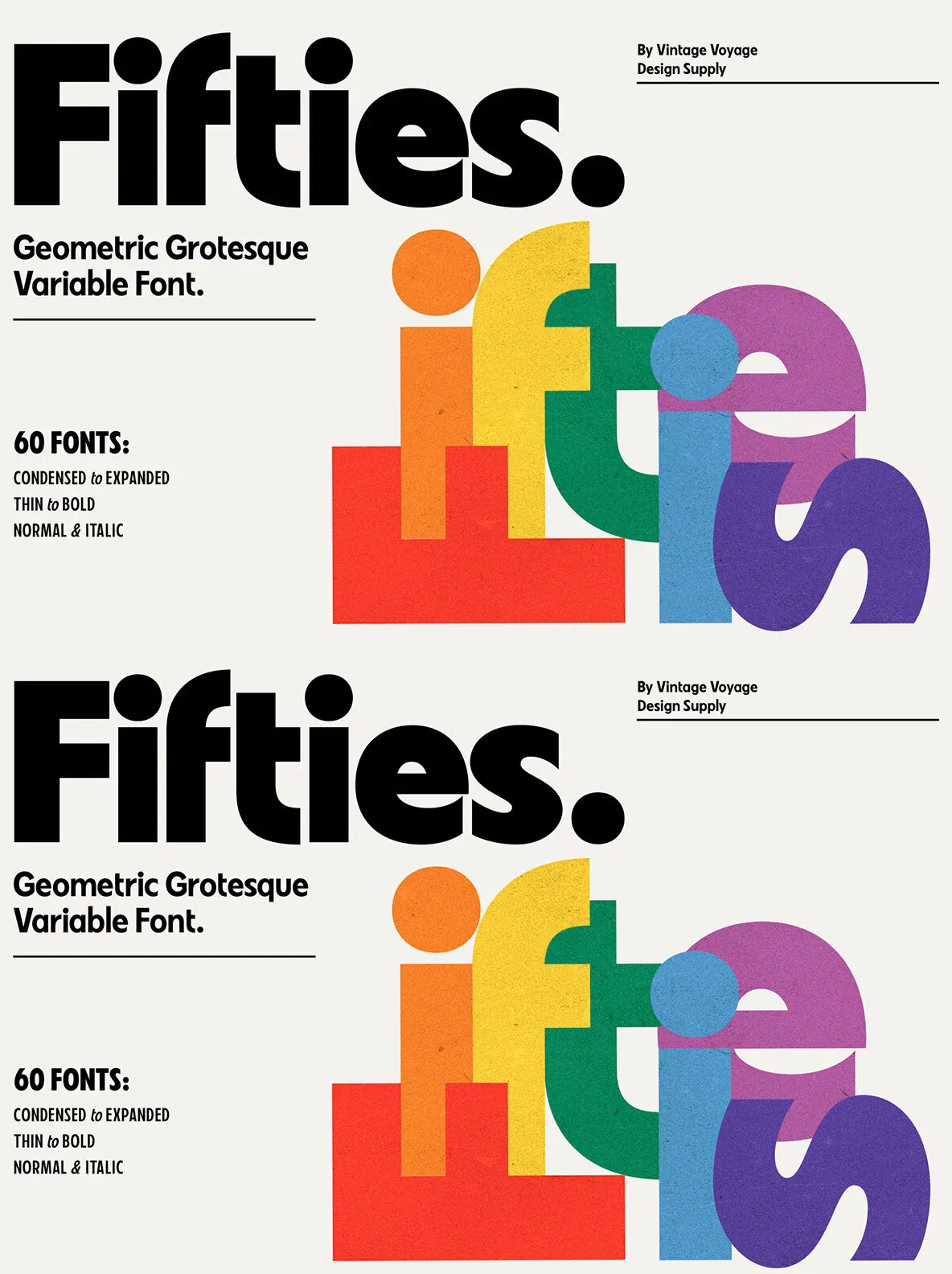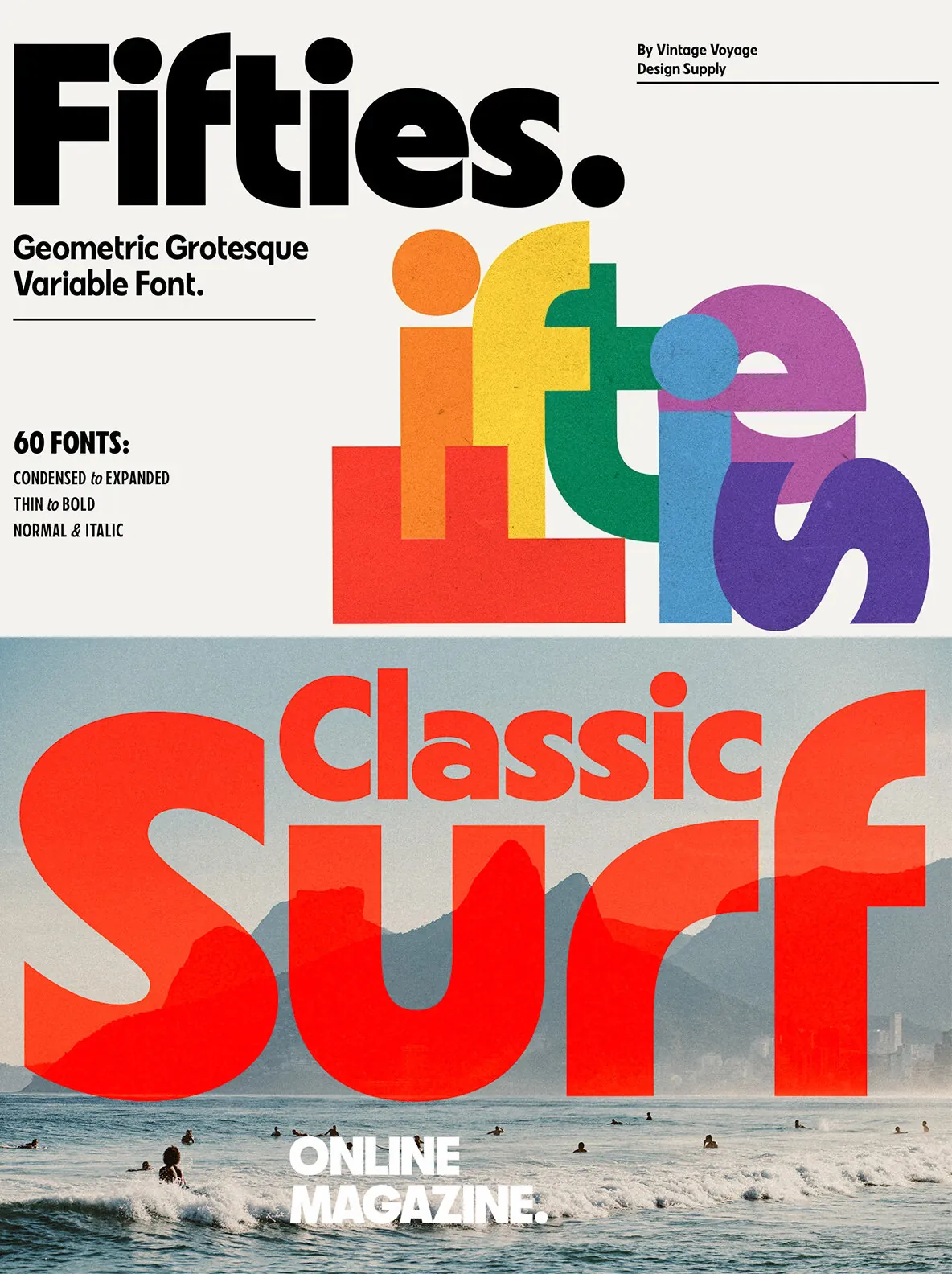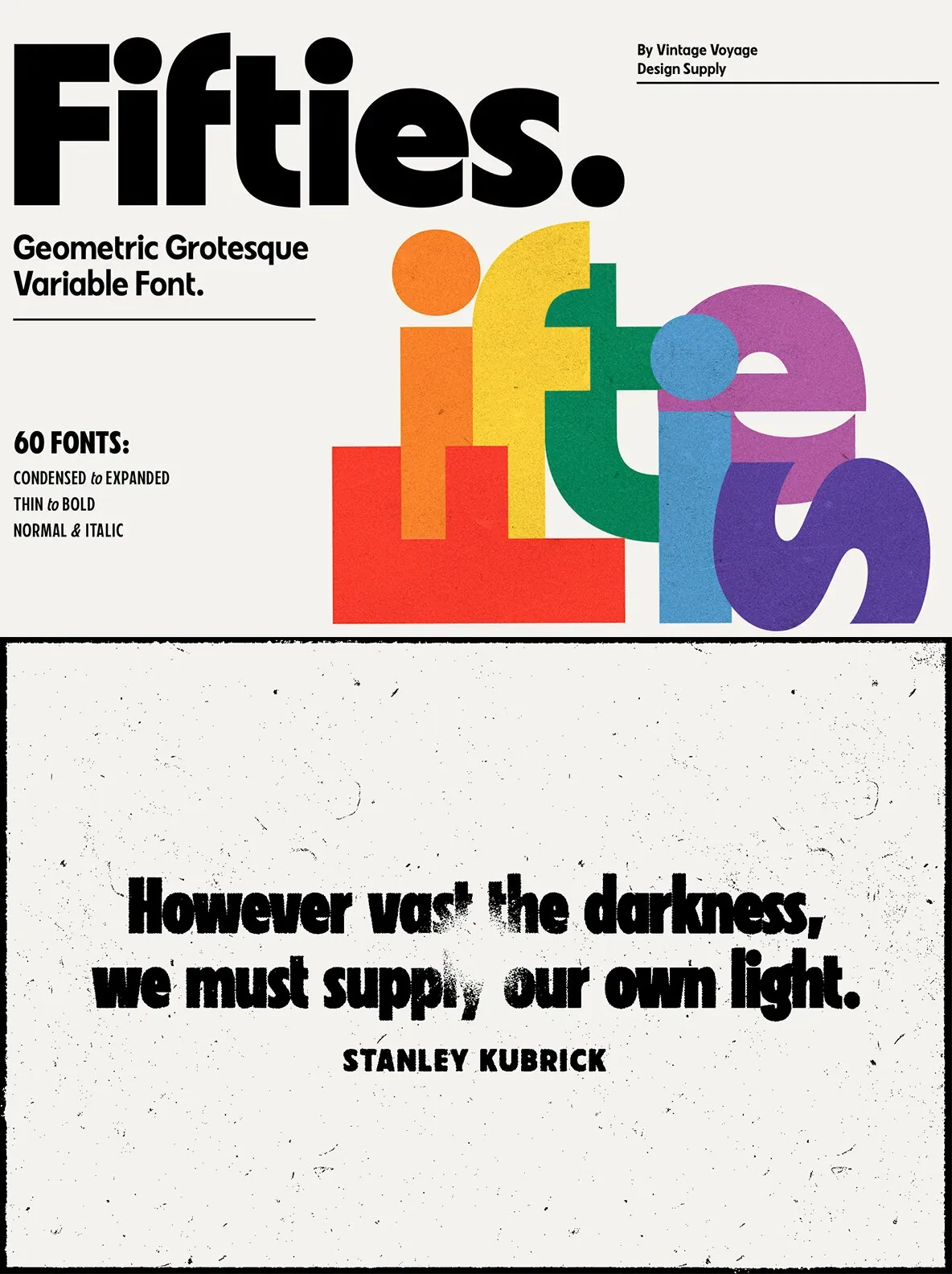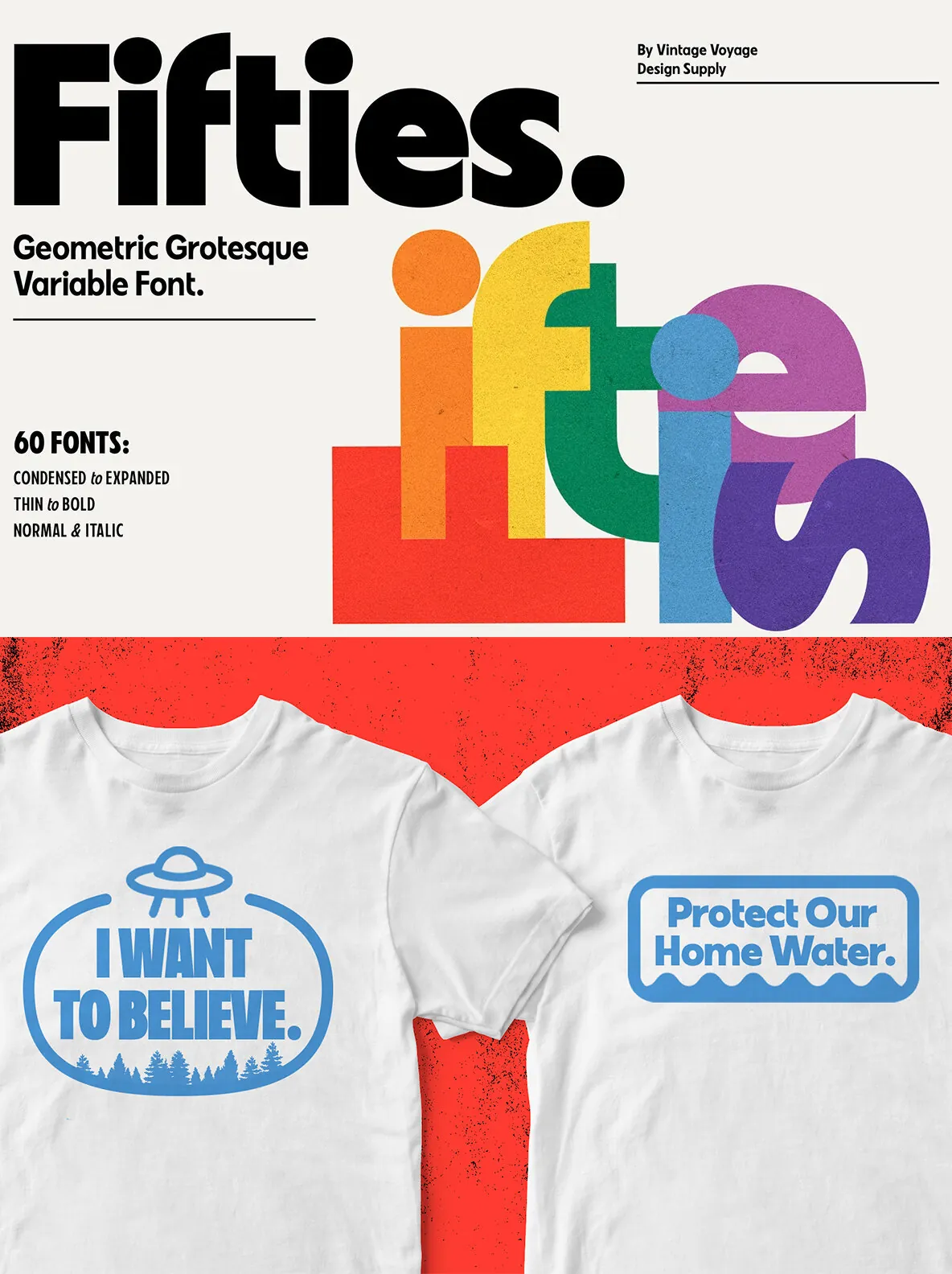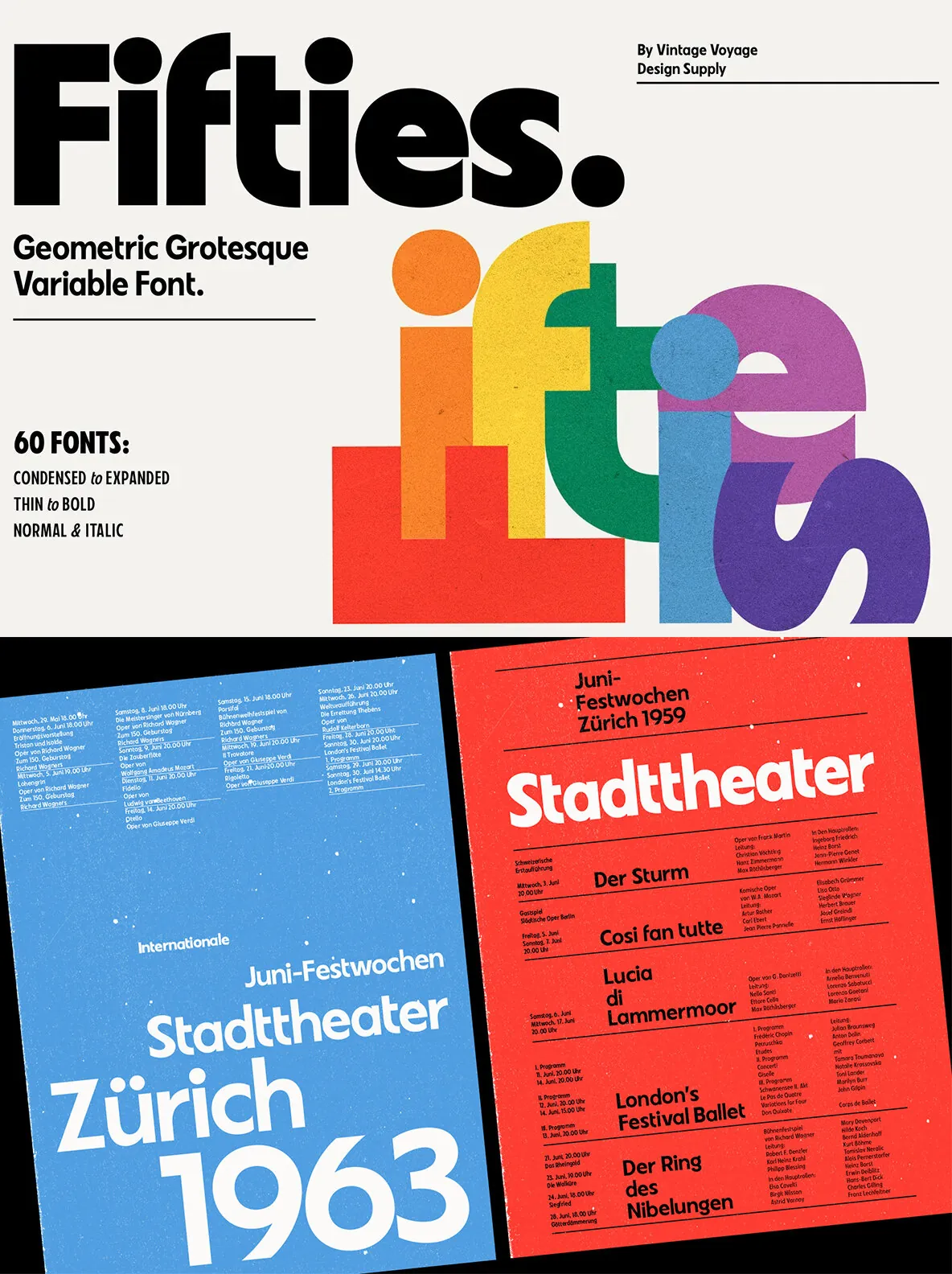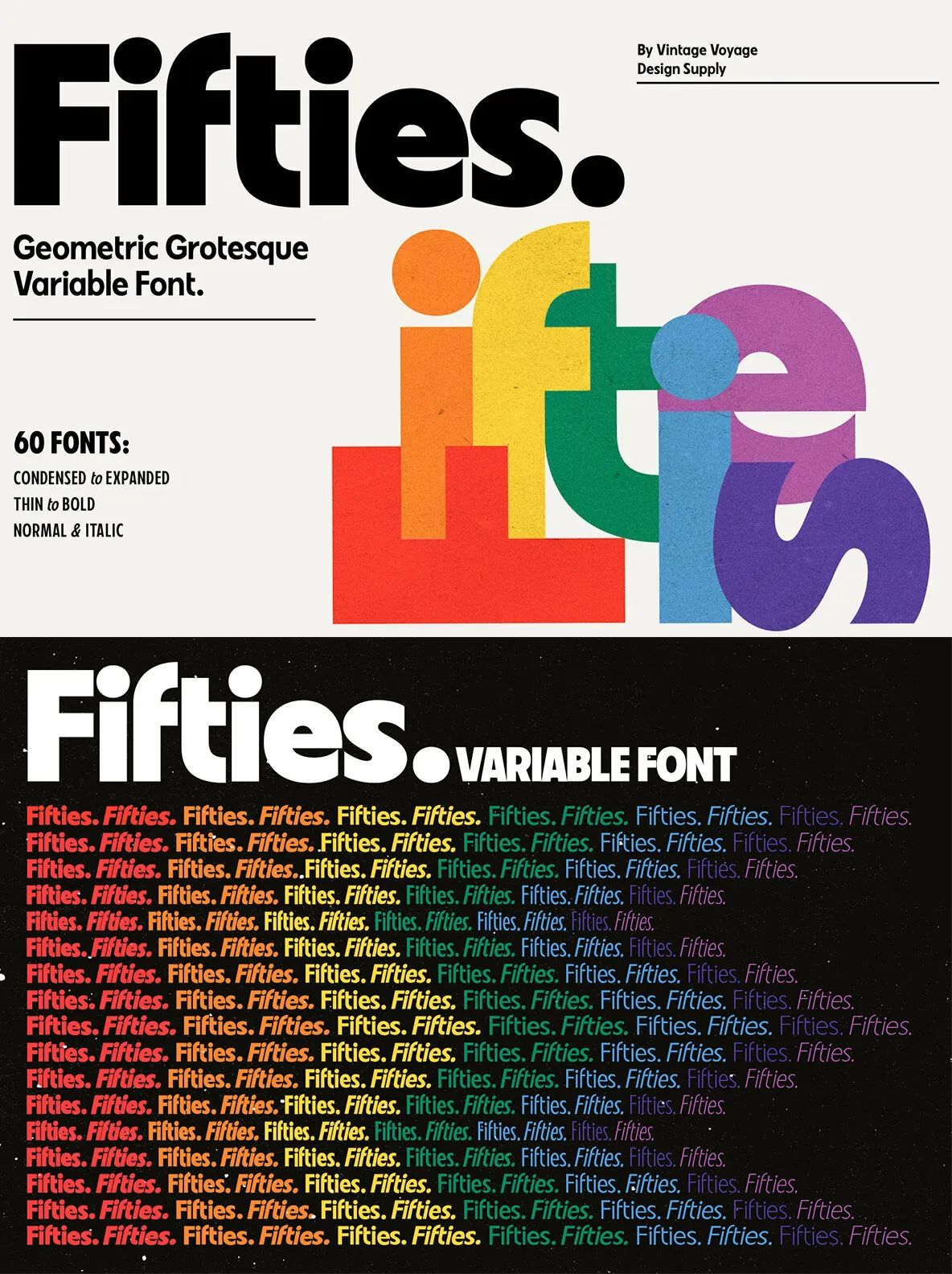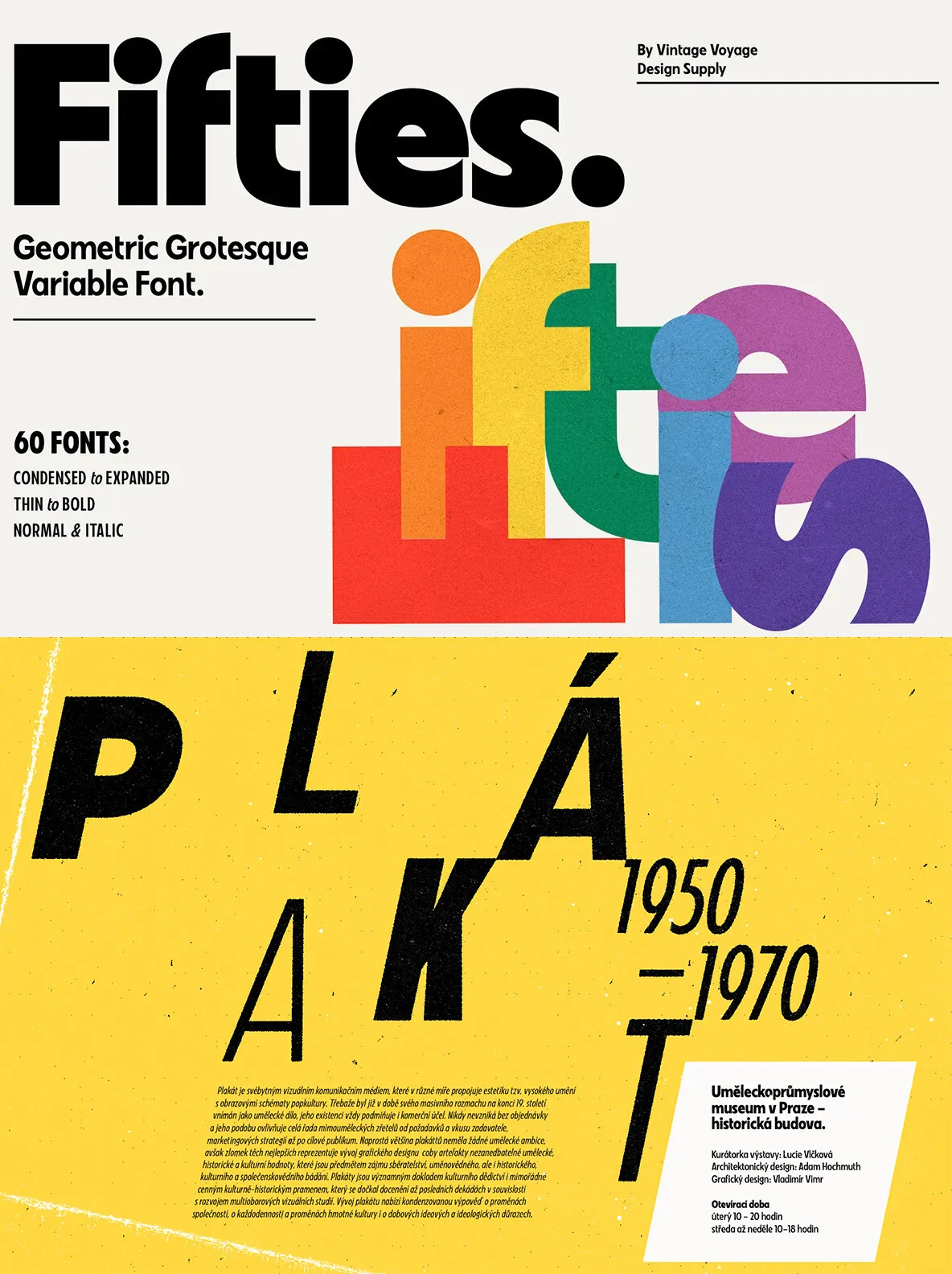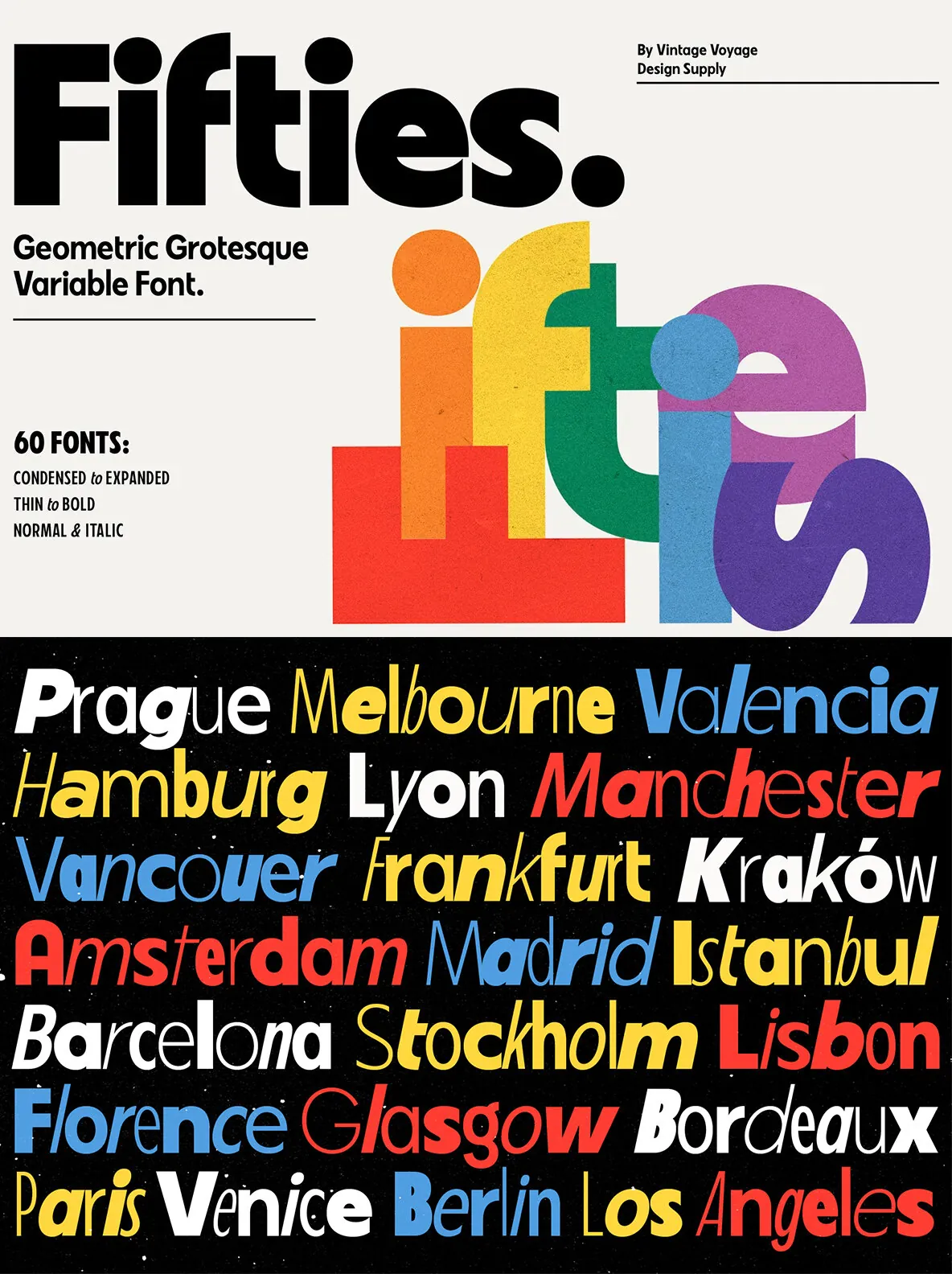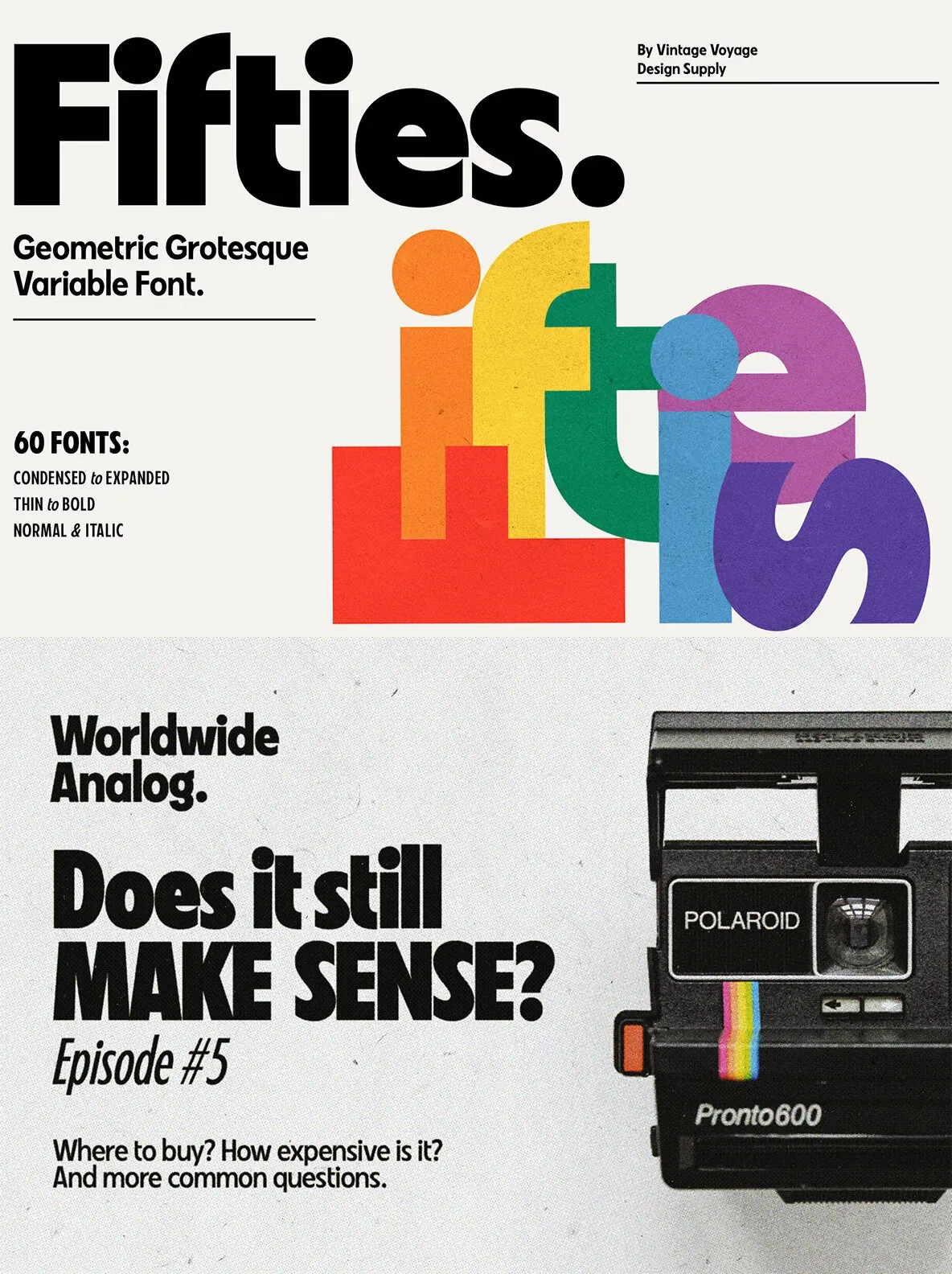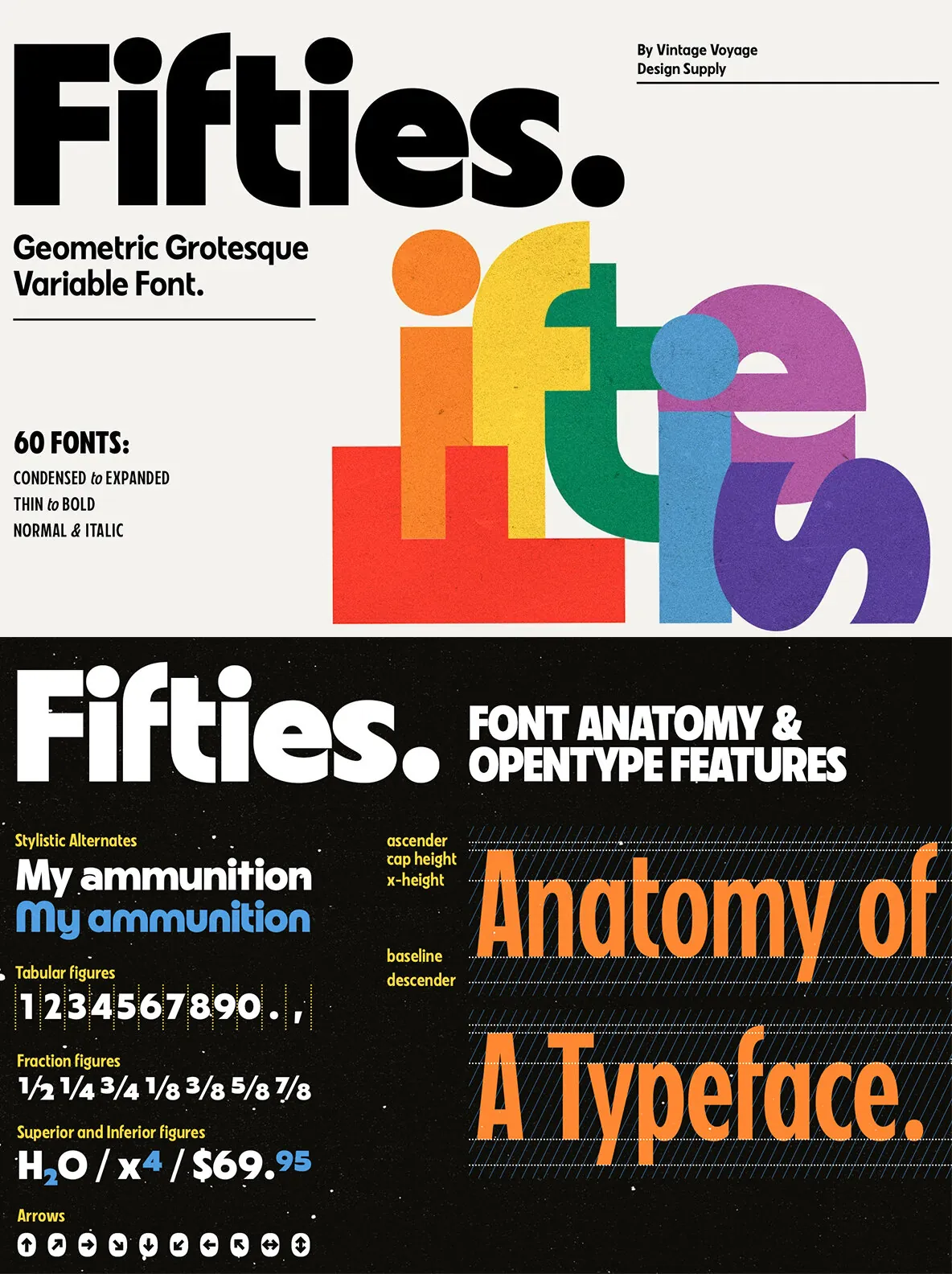
VVDS Fifties Font
Fifties: Classic Geometry Meets Humanistic Grotesque
Fifties blends classic geometric forms with subtle humanistic details, resulting in a versatile typeface that recalls the aesthetics of 20th-century Modernism. Designed to connect the present with the enduring style of the past, this font brings the timeless clarity and tactile warmth found in mid-century European design.
Balancing bold geometry with soft, approachable lines, Fifties is well suited for editorial projects, branding, and contemporary graphic work. Its carefully considered proportions offer both reliability and character, making it an effective choice for designers who value both form and function.